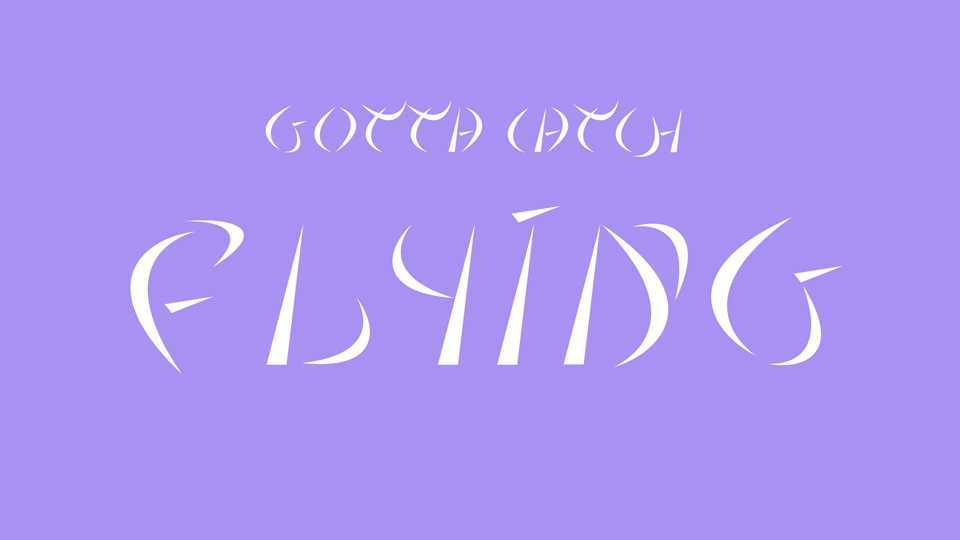
Download Gotta Catch Flying font, an experimental modular typeface designed during a type design initiation workshop given by Lucas Descroix in March 2021.
Designer: Erwan Batnini